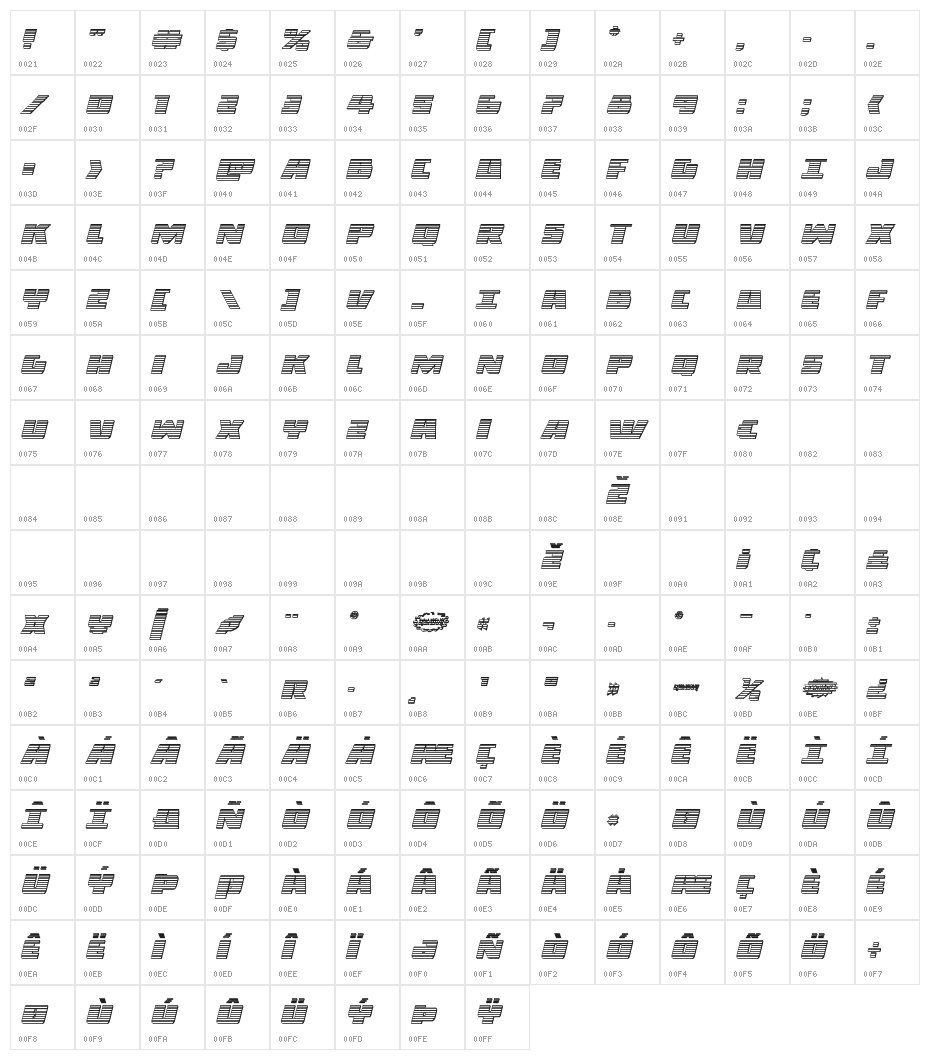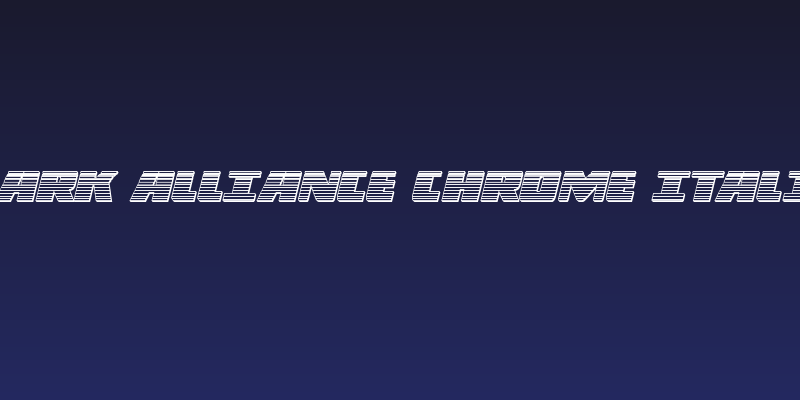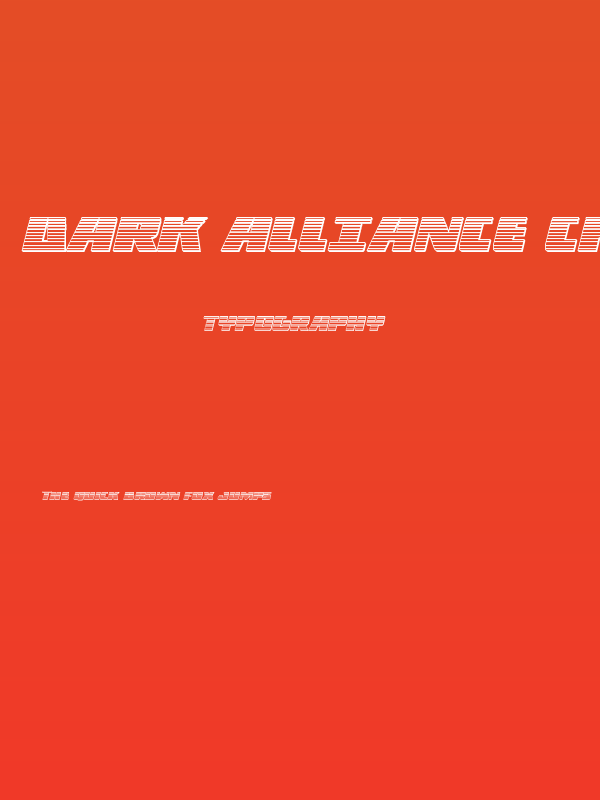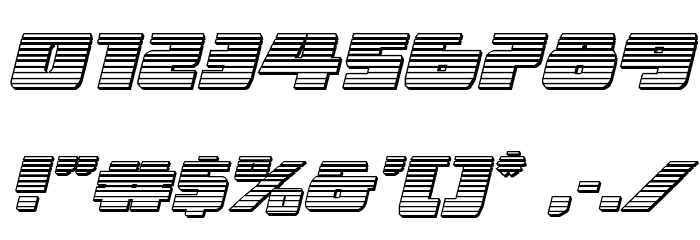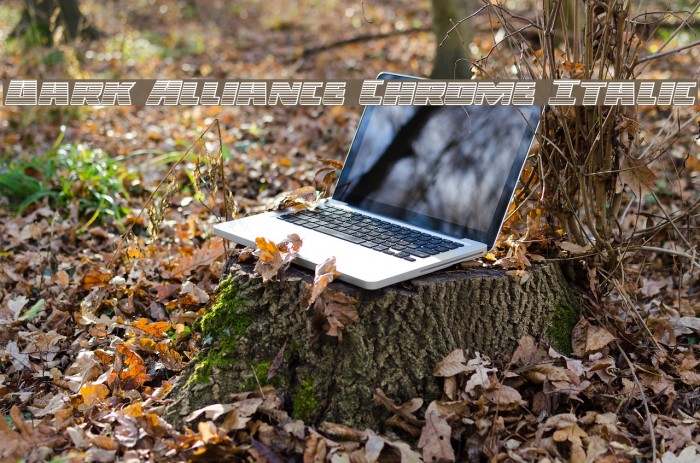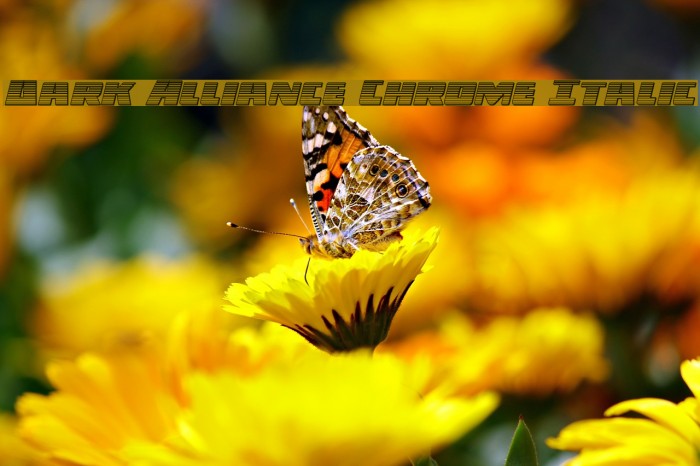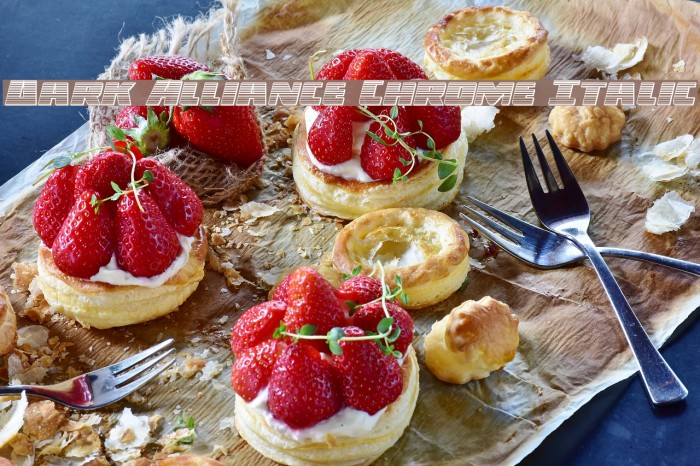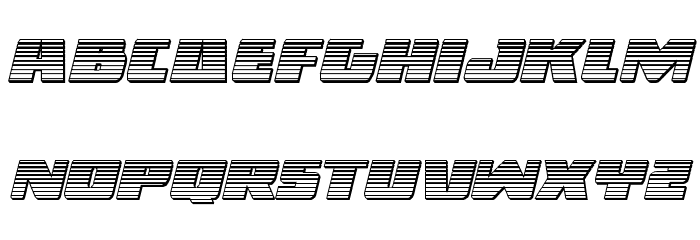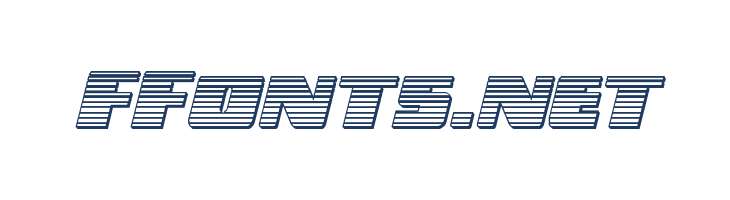
Dark Alliance Chrome Italic Font
Dark Alliance Chrome Italic Description
This font features a bold, futuristic design with a distinct chrome-like appearance. The characters are constructed with parallel lines that create a sense of depth and dimension, giving it a three-dimensional effect. The italicized slant adds a dynamic and forward-moving feel, making it ideal for projects that require a modern and edgy look. The uppercase letters are particularly striking, with sharp angles and a geometric structure that enhances its contemporary style. The numerals and special characters maintain the same aesthetic, ensuring consistency across all text elements.
| Proposed Projects | Ideal for sci-fi themed designs, video game titles, tech branding, and futuristic posters. |